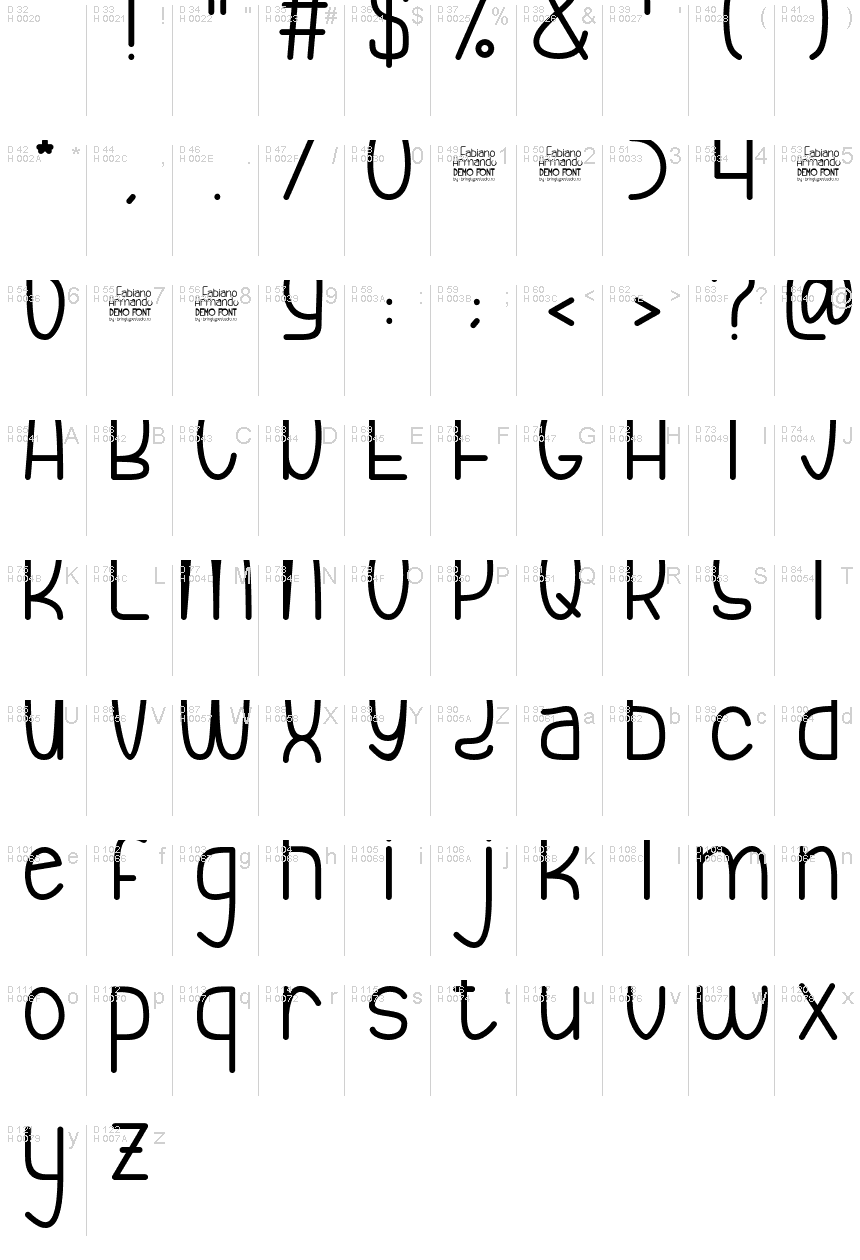
Fabiano Armando Light
Fabiano Armando Light is a testament to the elegance and fluidity that a handwritten font can offer. Crafted by bringtypestudio.co, this member of the Fabiano Armando family boasts a light weight that exudes sophistication and charm. Its delicate strokes and subtle variations in thickness capture the essence of personal touch, making it an excellent choice for designs requiring a hint of intimacy and finesse.
The aesthetic appeal of Fabiano Armando Light lies in its balance between readability and artistic flair. The font's gentle curves and clean lines lend themselves to a wide array of creative projects, from wedding invitations to branding materials, where a touch of human warmth is desired without sacrificing modern simplicity.
With its handwritten style, Fabiano Armando Light injects personality into text while maintaining an airy, uncluttered appearance. This makes it particularly suited for minimalist designs that require a soft yet impactful typeface. Whether on screen or printed media, this font stands out for its versatility and visual harmony, promising to enhance any message with understated elegance.
The aesthetic appeal of Fabiano Armando Light lies in its balance between readability and artistic flair. The font's gentle curves and clean lines lend themselves to a wide array of creative projects, from wedding invitations to branding materials, where a touch of human warmth is desired without sacrificing modern simplicity.
With its handwritten style, Fabiano Armando Light injects personality into text while maintaining an airy, uncluttered appearance. This makes it particularly suited for minimalist designs that require a soft yet impactful typeface. Whether on screen or printed media, this font stands out for its versatility and visual harmony, promising to enhance any message with understated elegance.